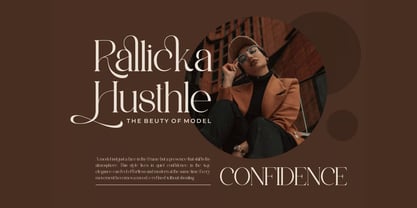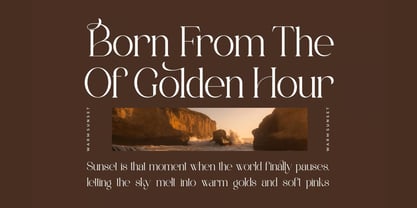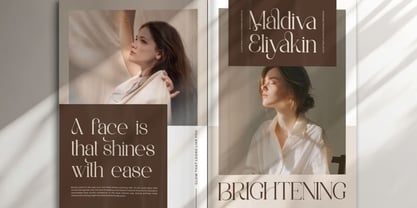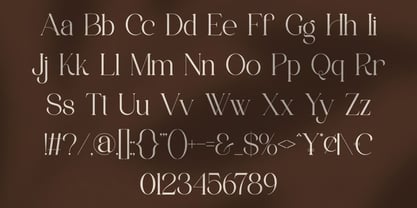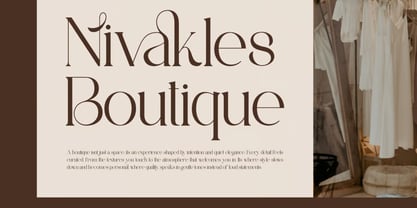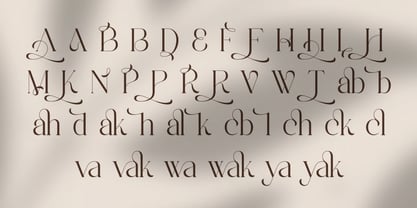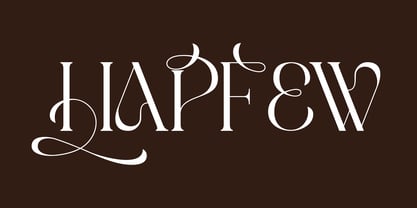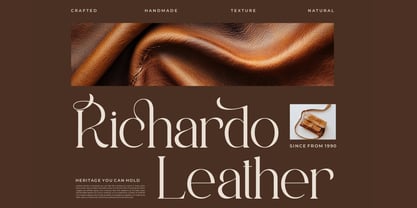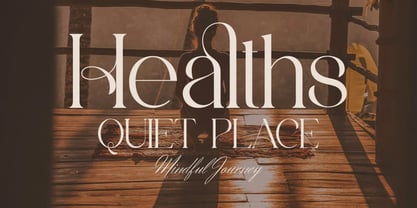
Hapfew
La familia tipográfica Hapfew fue diseñada por Hasnat Khan y publicada por Hasnat Studio. Hapfew contiene 1 estilos. Más información sobre esta familia
Hapfew is a modern and classy serif font designed to bring sophistication, versatility, and visual charm to every creative project. With its smooth letterforms, balanced proportions, and refined serif details, Hapfew delivers a timeless yet contemporary aesthetic that works beautifully across both print and digital design.
Crafted for designers who value elegance and clarity, Hapfew offers a polished typographic voice that enhances branding, logo design, editorial layouts, and promotional visuals. Its stylish ligatures and graceful structure make it an ideal choice for projects that require both professionalism and personality.
Whether you're creating invitation cards, movie titles, business cards, book covers, product branding, or luxury logos, Hapfew ensures your designs stand out with confidence and refined style.
✿ Key Features:
• Modern Classy Serif Design: Elegant and contemporary letterforms with refined detailing.
• Smooth & Sophisticated Style: Clean curves that enhance readability and visual appeal.
• Uppercase & Lowercase Characters: Complete alphabet for versatile design use.
• Stylish Ligatures: Beautiful character connections for professional typography.
• Numbers & Punctuation: Essential elements for branding and editorial projects.
• Multilingual Support: Includes accented characters for global usability.
• High-Quality Font Construction: Optimized for both print and digital applications.
• Versatile Design Usage: Suitable for a wide range of creative industries.
✿ Perfect For:
• Branding & Logo Design: Create strong, memorable, and elegant brand identities.
• Invitation Card Design: Ideal for weddings, events, and special occasions.
• Movie Titles & Posters: Add cinematic elegance to visual storytelling.
• Business Cards & Corporate Design: Enhance professional brand presentation.
• Book Covers & Editorial Layouts: Perfect for publishing and creative writing projects.
• Fashion & Luxury Branding: Suitable for premium and stylish brand identities.
• Social Media & Marketing Content: Create engaging and polished visuals.
Elevate your creative work with Hapfew—a modern classy serif font perfect for branding, logos, invitations, movie titles, business cards, book covers, packaging, and sophisticated visual identities.